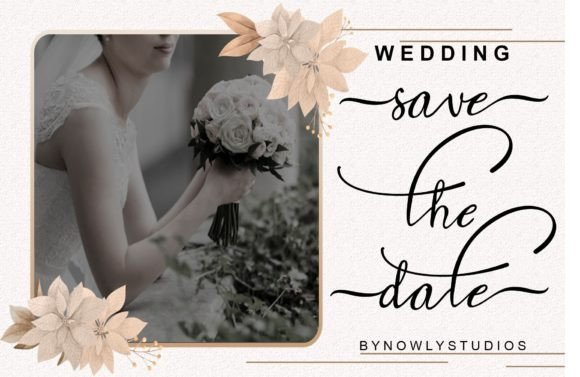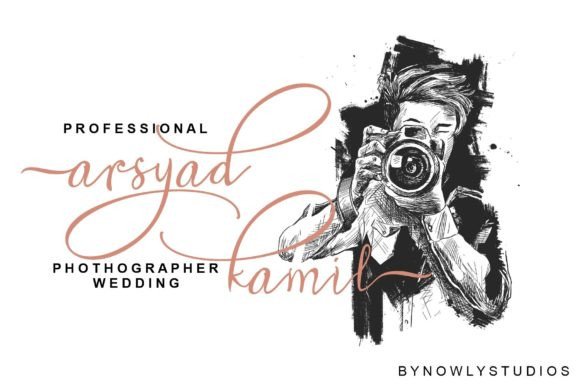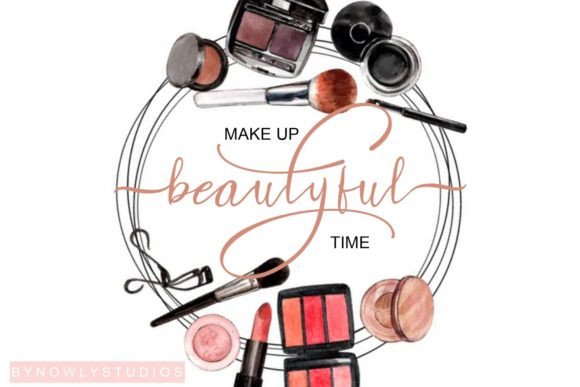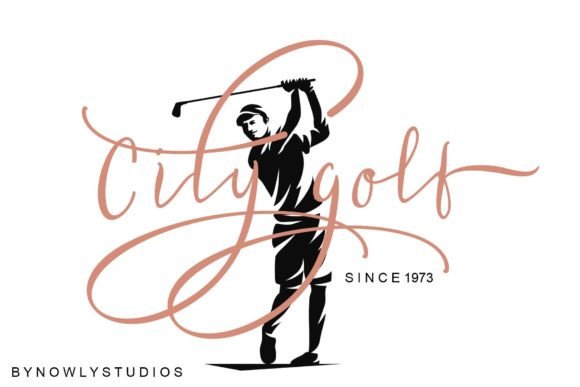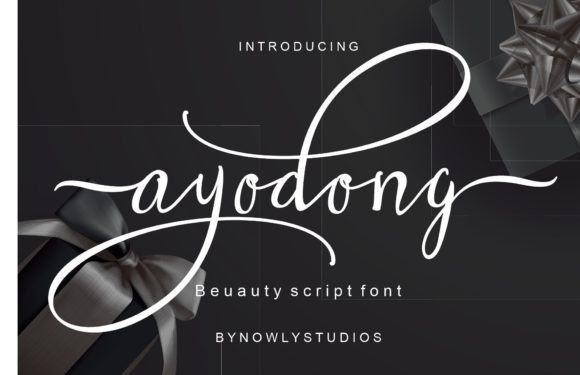
Ayodong Font: Elevate Your Designs with Elegant Handwritten Typography
Are you a designer or crafter looking for a beautiful and romantic font to add a touch of elegance to your projects? Look no further than Ayodong Font, a delicate handwritten font that embodies the charm of sophistication in every character.
What is Ayodong Font?
Ayodong Font is a stunning handwritten font that is perfect for projects that require beautiful and romantic typography. With its delicate and elegant strokes, this font is sure to add a touch of refinement to any design. Whether you’re working on a wedding invitation, a branding project, or a digital product, Ayodong Font is the perfect choice.
Key Features of Ayodong Font
- Delicate Handwritten Style: Ayodong Font features a beautiful, handwritten style that is both elegant and refined.
- PUA-Coded: This font is PUA-coded, which means you can access all the glyphs and swashes easily, making it simple to use and customize.
- Romantic and Beautiful: With its intricate strokes and elegant charm, Ayodong Font is perfect for projects that require a romantic and beautiful touch.
Why Use Ayodong Font?
There are many reasons why designers and crafters love Ayodong Font. Here are just a few:
- Add Elegance to Your Designs: With Ayodong Font, you can add a touch of elegance and sophistication to your designs, making them stand out from the crowd.
- Perfect for Romantic Projects: Whether you’re working on a wedding invitation, a love letter, or a romantic digital product, Ayodong Font is the perfect choice.
- Easy to Use: With its PUA-coded feature, you can easily access all the glyphs and swashes, making it simple to use and customize.
Tips and Tricks for Using Ayodong Font
Here are some tips and tricks for getting the most out of Ayodong Font:
- Pair with Other Fonts: Ayodong Font looks great when paired with other fonts, such as sans-serif fonts or script fonts.
- Experiment with Colors: Try experimenting with different colors and textures to add depth and interest to your designs.
- Use Swashes and Glyphs: Don’t be afraid to get creative with the swashes and glyphs that come with Ayodong Font.
In conclusion, Ayodong Font is a beautiful and elegant handwritten font that is perfect for designers and crafters looking to add a touch of sophistication to their projects. With its delicate strokes, romantic charm, and PUA-coded feature, this font is sure to become a favorite in your design arsenal. So why wait? Download Ayodong Font today and start creating stunning designs that will leave a lasting impression!